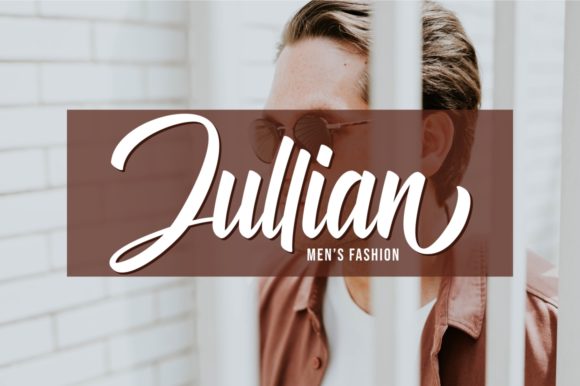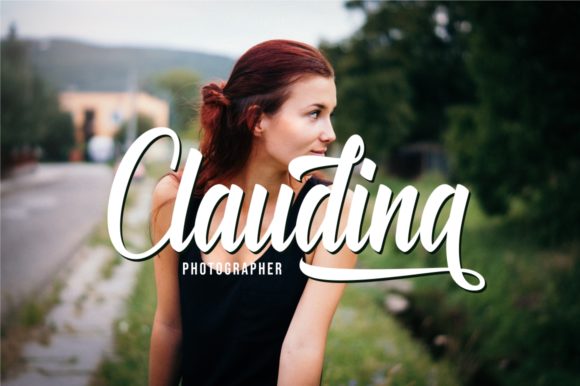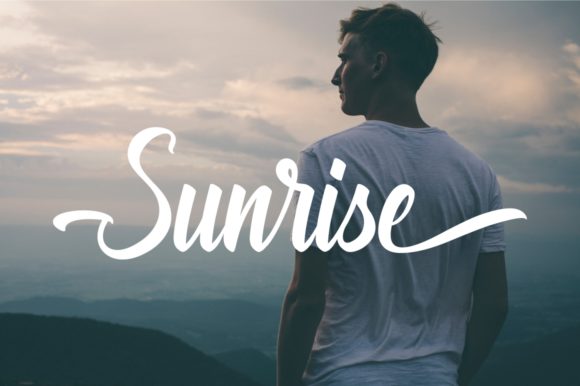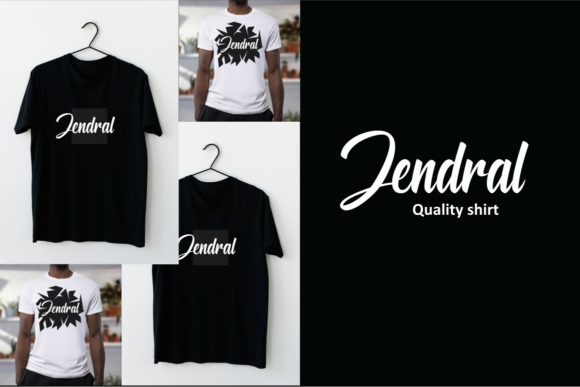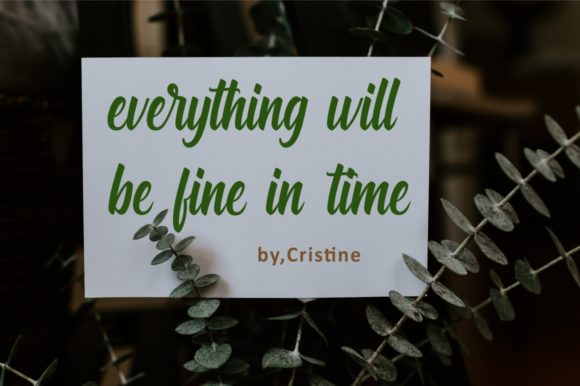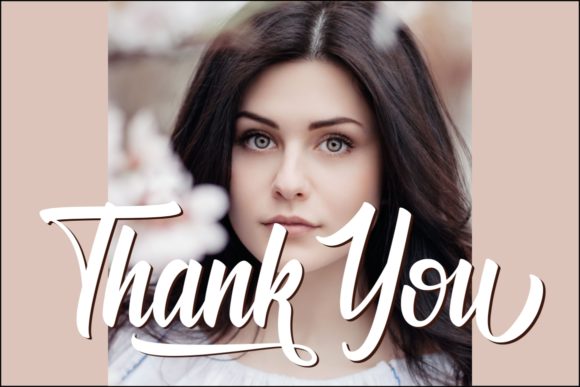
Discover the Dazzling Elegance of Angelinatta Font
Are you on the hunt for a font that embodies modern elegance with a playful twist? Look no further than Angelinatta Font. This stunning handwritten font is making waves in the design community, and for good reason. Its unique blend of sophistication and whimsy makes it the perfect addition to any project. In this article, we’ll dive into the world of Angelinatta Font, exploring its features, uses, and what makes it a must-have for designers and crafters alike.
The Story Behind Angelinatta Font
Angelinatta Font is a relatively new addition to the font family, but it has quickly gained popularity among designers and crafters. The brainchild of a talented typographer, Angelinatta was created with the intention of crafting a font that exudes elegance and playfulness. The result is a dazzling handwritten font that is both modern and sophisticated.
What Makes Angelinatta Font So Special?
So, what sets Angelinatta Font apart from other fonts on the market? Here are just a few features that make it a standout:
- Unique Letterforms: Angelinatta Font boasts unique and intricate letterforms that are both visually appealing and highly legible.
- Playful Twist: The font’s playful twist adds a touch of whimsy to any project, making it perfect for designs that require a bit of personality.
- Modern Elegance: With its clean lines and sophisticated curves, Angelinatta Font embodies modern elegance, making it ideal for high-end designs.
- Versatility: This font is incredibly versatile, suitable for a wide range of projects, from branding and advertising to packaging and digital media.
Uses for Angelinatta Font
Angelinatta Font is a versatile font that can be used in a variety of projects, including:
- Branding and Logo Design: Create a lasting impression with a custom logo that incorporates Angelinatta Font.
- Advertising and Marketing: Add a touch of elegance and sophistication to your advertising campaigns with this stunning font.
- Packaging Design: Make your products stand out on store shelves with eye-catching packaging that features Angelinatta Font.
- Digital Media: Use Angelinatta Font in your digital projects, such as website designs, social media graphics, and more.
Tips for Using Angelinatta Font
To get the most out of Angelinatta Font, here are a few tips to keep in mind:
- Pair with Neutrals: Pair Angelinatta Font with neutral colors and clean backgrounds to let the font take center stage.
- Experiment with Sizes: Play around with different font sizes to create visual interest and hierarchy in your designs.
- Add Texture: Add texture and depth to your designs by incorporating Angelinatta Font with other design elements, such as patterns and illustrations.
Angelinatta Font is a game-changing font that is sure to inspire designers and crafters alike. With its modern elegance, playful twist, and versatility, it’s the perfect addition to any project. Whether you’re looking to create a stunning brand identity, eye-catching packaging, or engaging digital media, Angelinatta Font is the perfect choice. So why wait? Get inspired by the dazzling elegance of Angelinatta Font and take your designs to the next level.